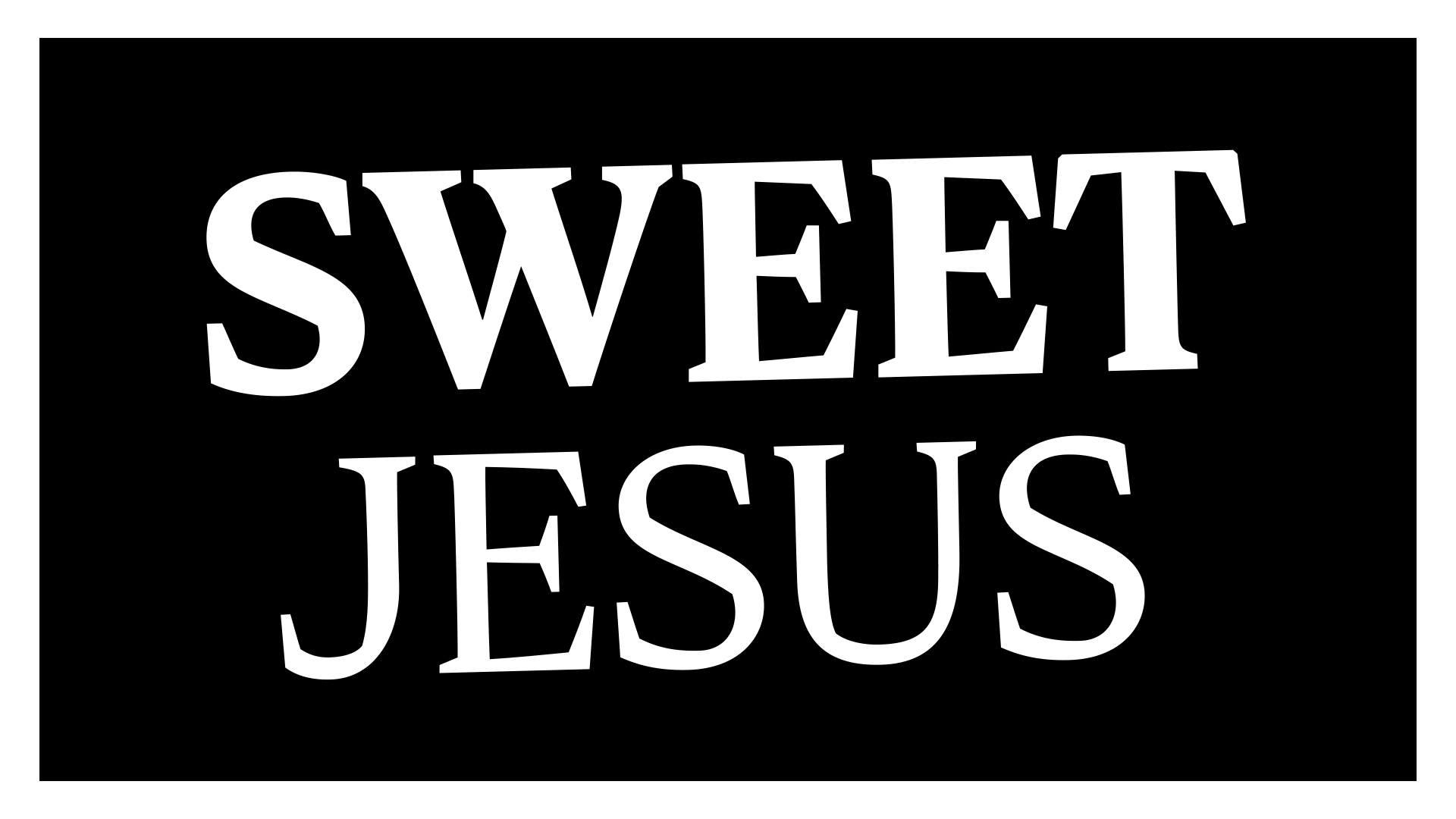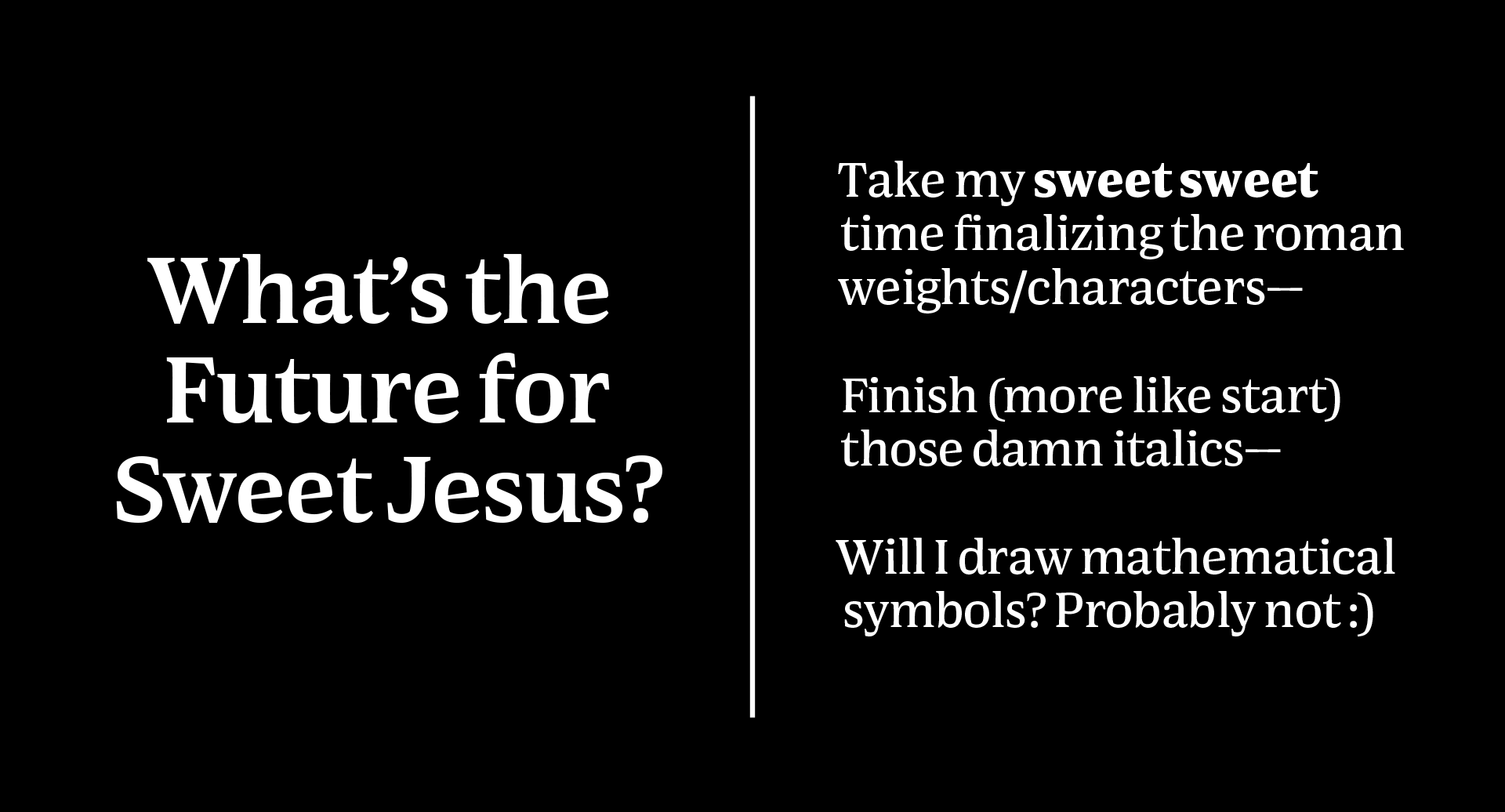
Sweet Jesus
Sweet Jesus is an 8 style display family with the beginnings of an 8 style italic companion. With large open counters, sharp angular terminals and serifs, It was designed to be utilized in display sizes for editorial but can also be put to work for smaller scales. Sweet Jesus slowly evolved into a combination of a humanist hand and scotch roman proportions to guide the design into a more modern setting.
This typeface began from a happy accident. During the first week of the program, my calligraphy was written with my left hand which presented interesting results. I managed to form round outlines on the outside with sharp corners within the inside counterforms. Corners were formed as the direction of the nib changed. I really enjoyed this characteristic and approached my typeface family with this system and other characteristics in mind.
Why Sweet Jesus you ask? Well, if you undergo the TypeParis program, you will have many, many, many moments that force you to say “holy sh*t”, or something to that effect. In this case, “sweet jesus” was the phrase of choice.